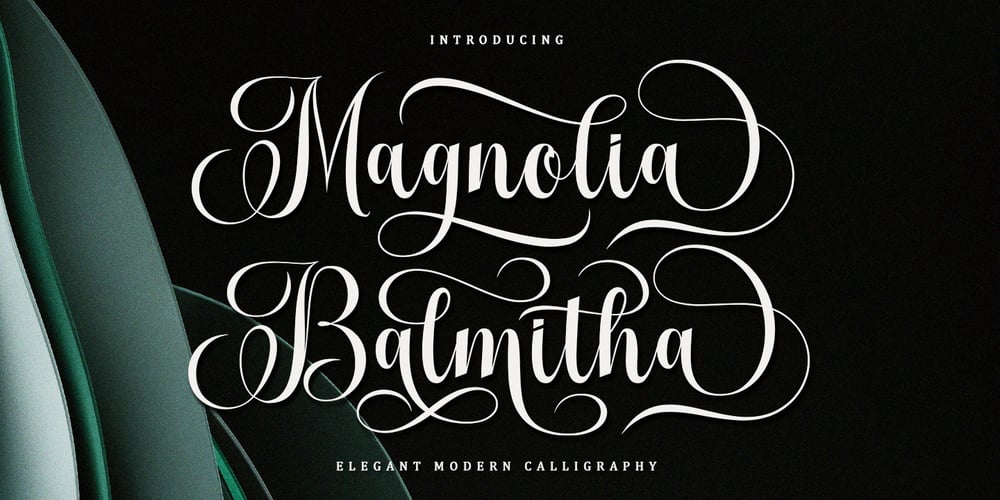
Magnolia Balmitha Font Family was designed by Muhammad Nazar and published by Bungletter. Magnolia Balmitha contains 1 styles and family package options. Magnolia Balmitha is a very Beautiful, elegant and unique handwritten font. Expertly designed to be a true favourite, this font has the potential to take your creative ideas to the highest level!This font is PUA encoded which means you can access all the glyphs and sweeps easily!Magnolia Balmitha is attractive because it is sleek, clean, feminine, sensual, glamorous, simple and very easy to read, thanks to its many luxurious letter connections. I also offer a decent number of style alternatives for all letters. Classic style is very suitable to be applied in various formal forms such as invitations, labels, restaurant menus, logos, fashion, make up, stationery, novels, magazines, books, greeting/wedding cards, packaging, labels or all kinds of advertisements. for your purposes. . . . . . .Contains full set:-Uppercase-Lowercase-Alternative-Ligatures-Punctuation-Number-Multilingual support.need help or have questions let me know. I’m happy to help.Thanks & Congratulations on the Design.